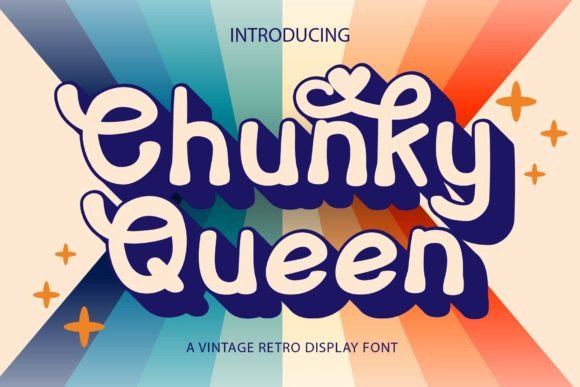
Dive into the world of vintage charm with Chunky Queen, a display font that oozes sophistication and nostalgia. Crafted by the talented Densu Creative, this font is a delightful fusion of classic style and modern elegance. Experience the allure of bygone eras as you incorporate Chunky Queen into your creative endeavors.
Unleash your inner artist and let the magic of Chunky Queen transform your designs. Its carefully crafted characters evoke a sense of nostalgia, adding a touch of warmth and familiarity to any project. Whether you're creating logos, branding materials, invitations, stationery, or captivating social media posts, Chunky Queen will elevate your designs to new heights.
Indulge in the versatility of Chunky Queen. Its timeless charm effortlessly complements a wide range of design styles, from retro and vintage to contemporary and eclectic. With Chunky Queen, you have a font that effortlessly adapts to your creative vision, allowing you to express yourself fully.
Embrace the beauty of simplicity with Chunky Queen. Its clean lines and effortless flow create a visual harmony that draws the eye and captivates the senses. This font is not just a tool; it's an artistic expression that adds a touch of class and sophistication to your designs.
Experience the allure of Chunky Queen today and embark on a creative journey like no other. Let this font ignite your imagination and transform your designs into masterpieces that stand the test of time.